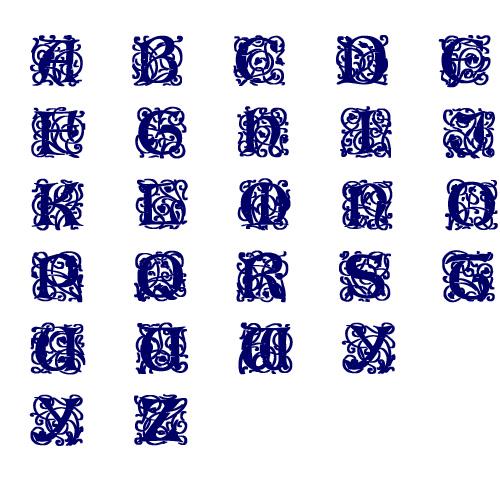
Fireside Threads is happy to present Eileen Caps Embrilliance machine embroidery font which has Decorative script machine embroidery font with intricate swirls ideal for embellishing home décor items like pillows or table runners. Available in BX font and Embrilliance format. included. If you would like to view more embroidery fonts and alphabets please search our embroidery fonts page.